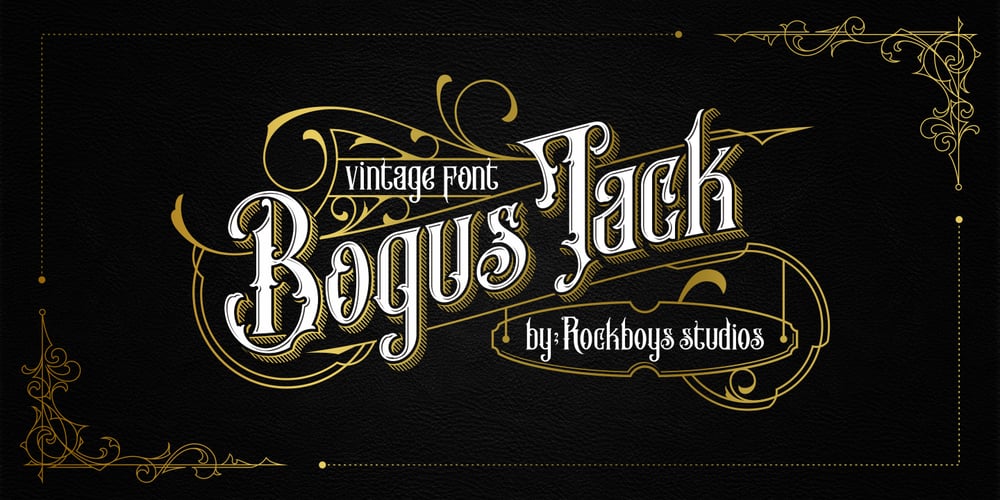
Bogus Jack
Bogus Jack font
Bogus Jack Font Family was designed by Hayinah and published by Rockboys Studio. Bogus Jack contains 1 styles and family package options. Bogus Jack is an amazingly unique blackletter font with a strong and classic vibe. Get inspired by its original feel and use it for tattoo designs, logos, posters, book covers, albums and more!